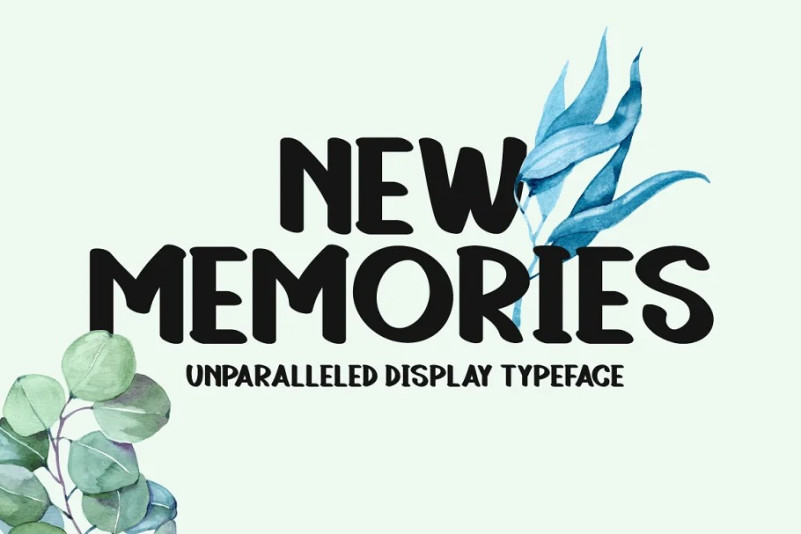
New Memories Display Font is a brand new display font that is perfectly suited for stationery, logos, t-shirts, paper, print designs, website headers, photo frames, flyers, music album covers, posters, image sliders, and much more. Try it now and your creative projects will make new memories for you and for the ones you share them with.
New Memories